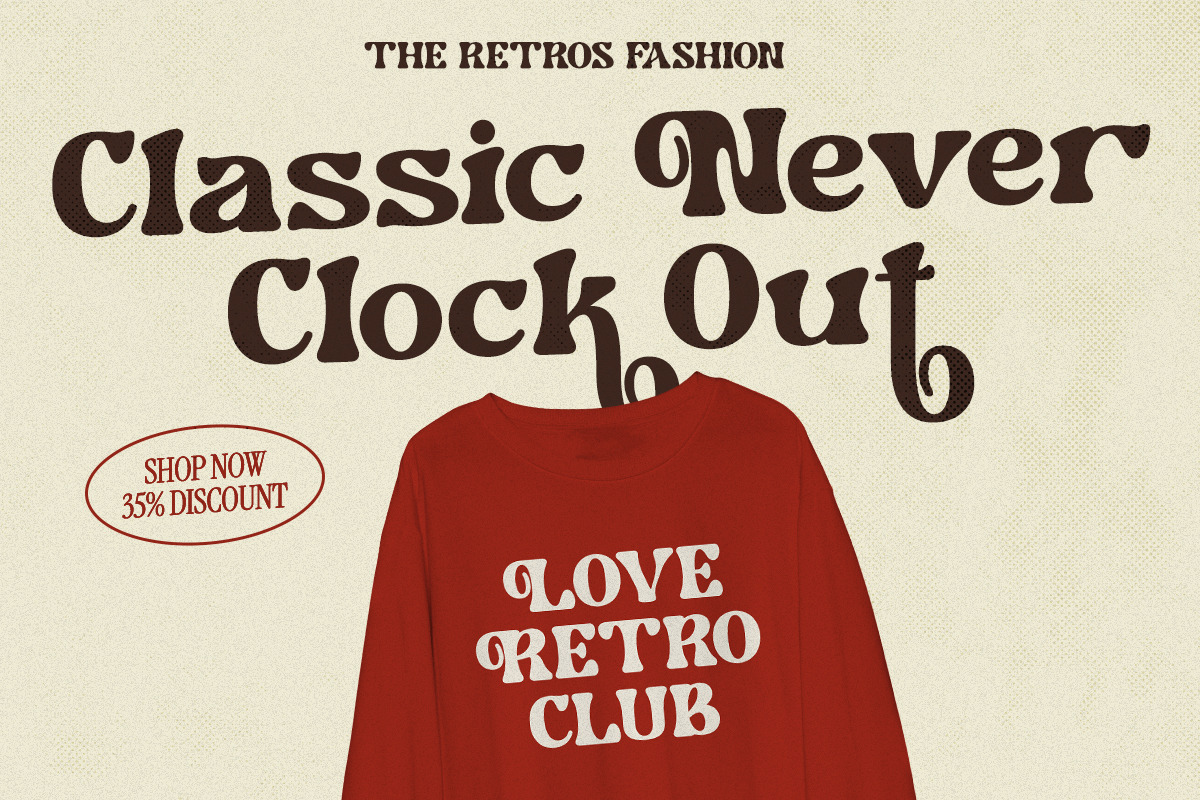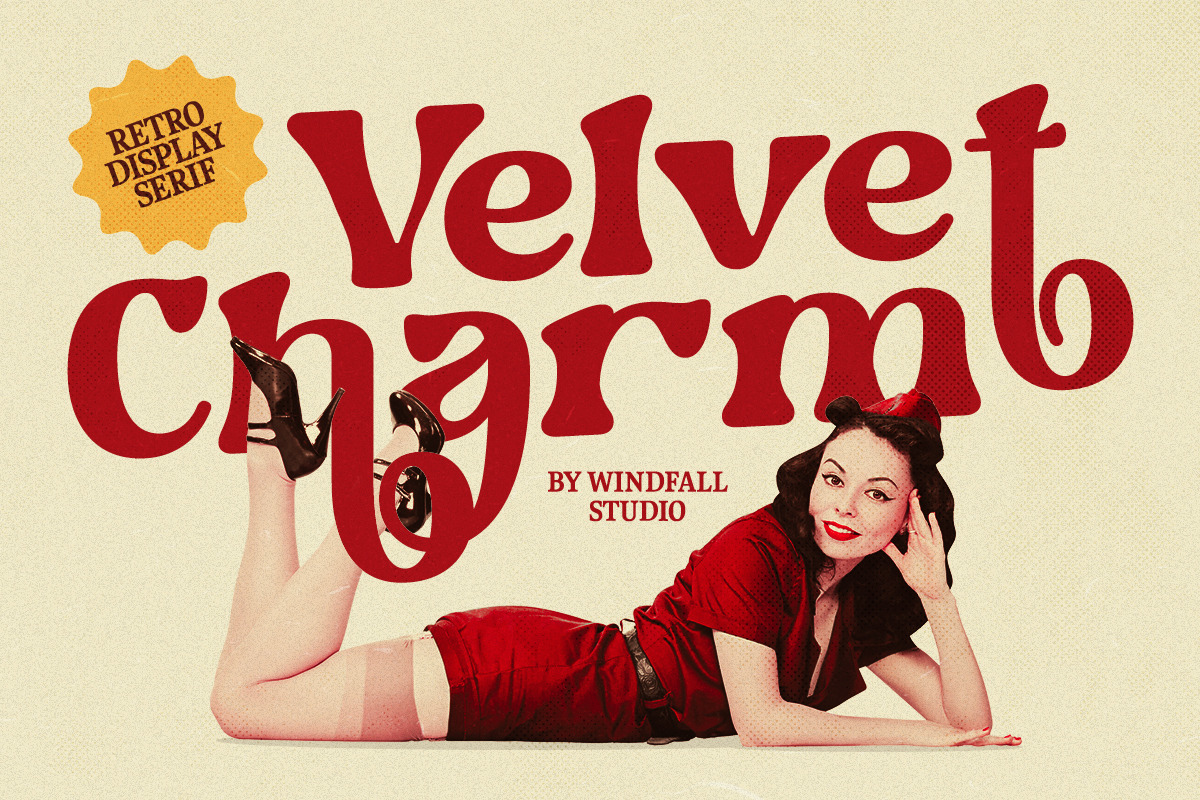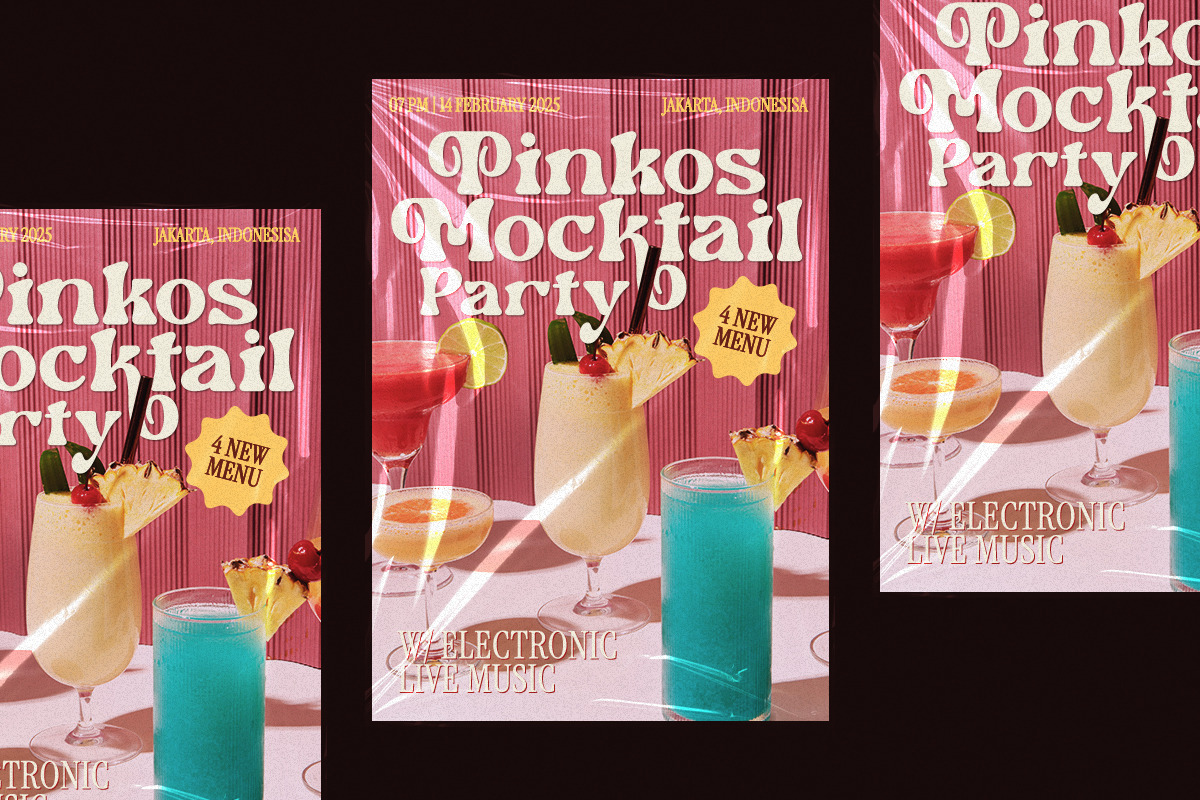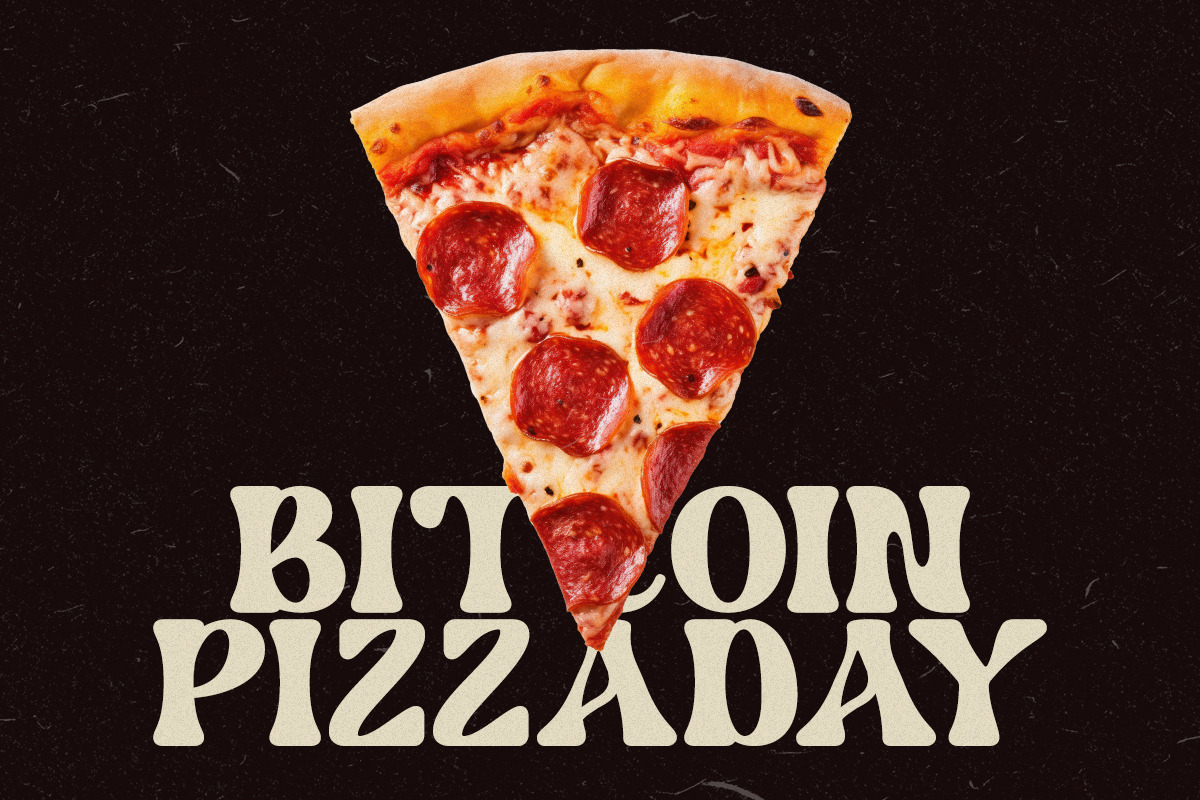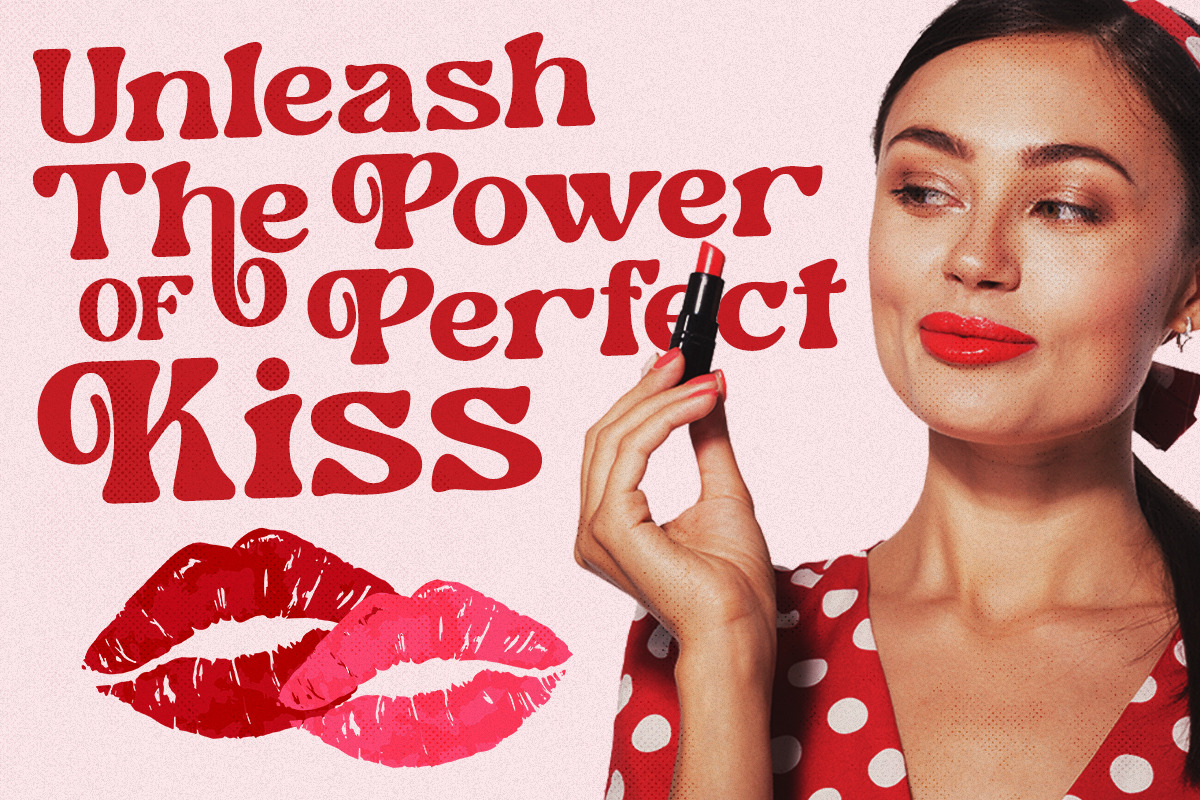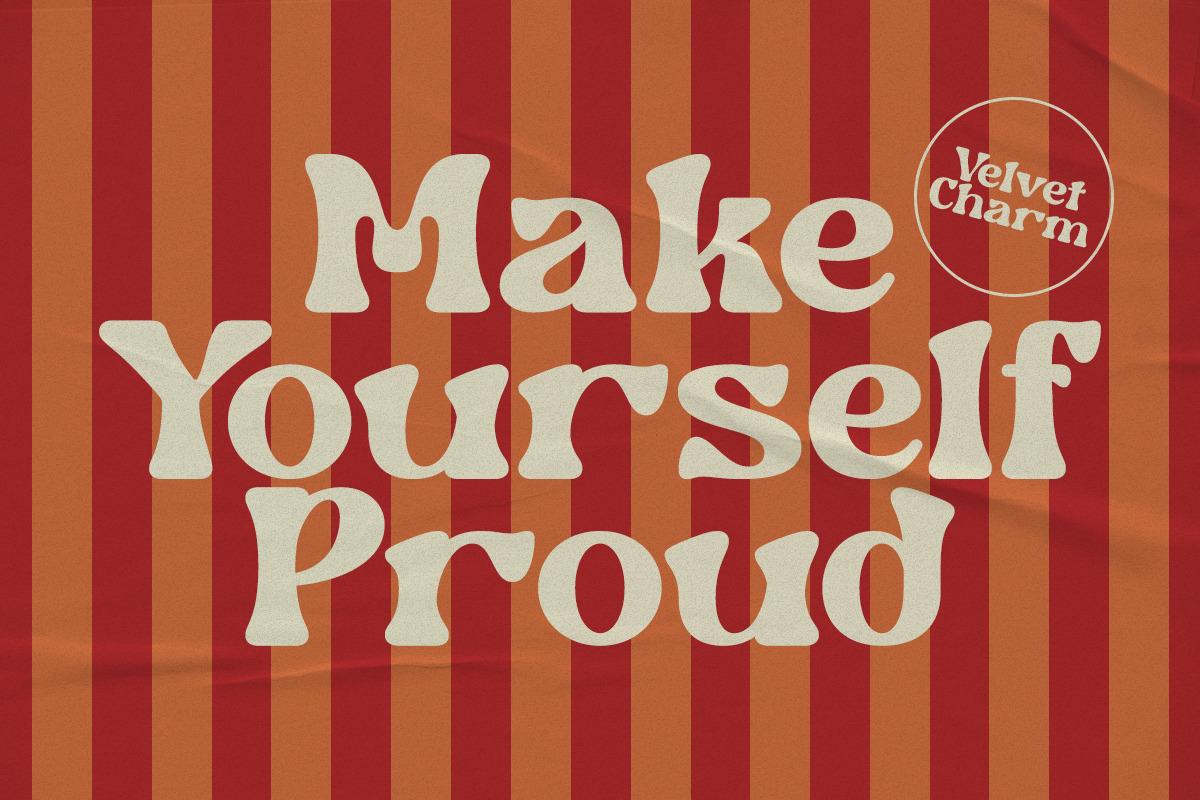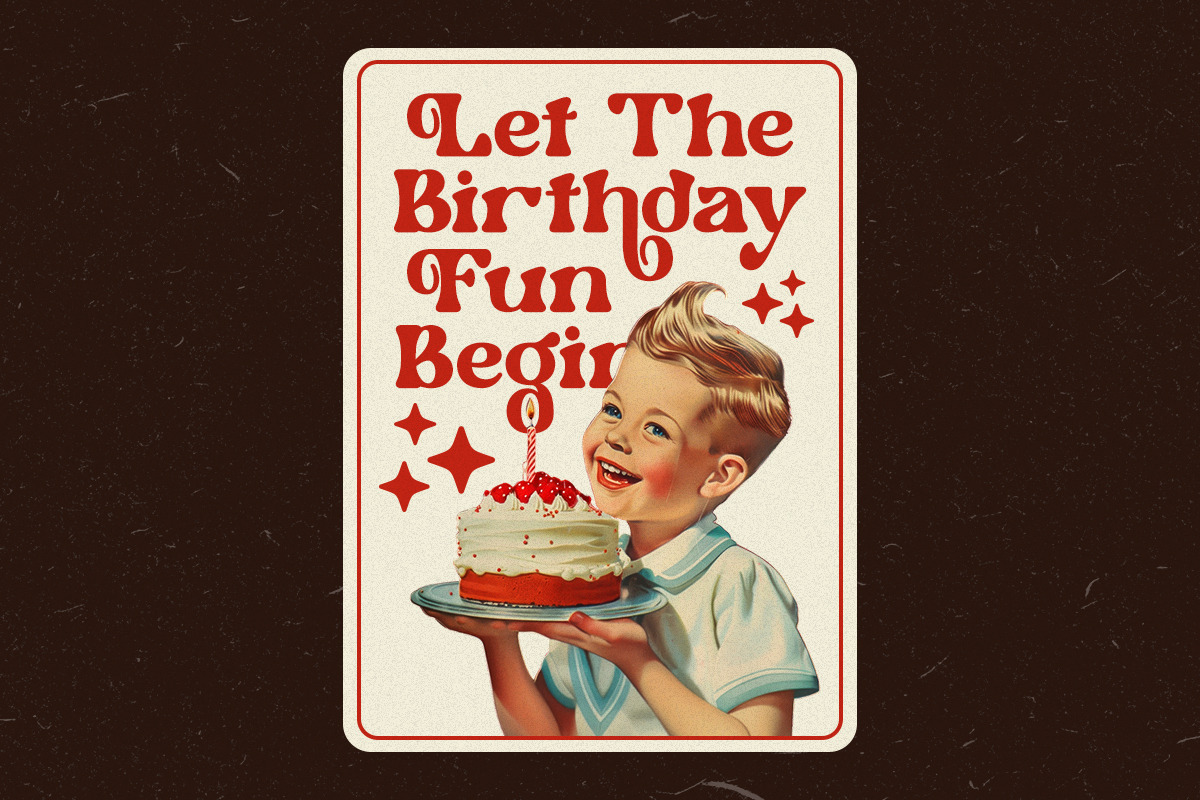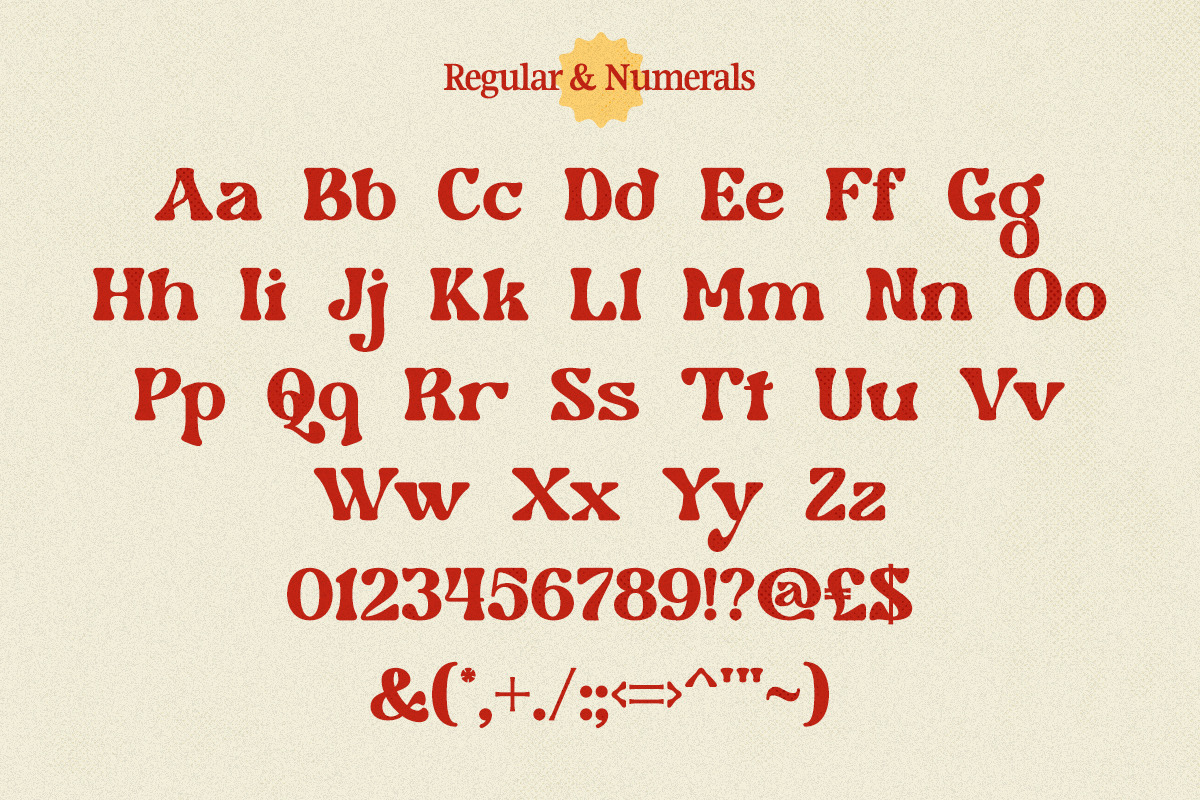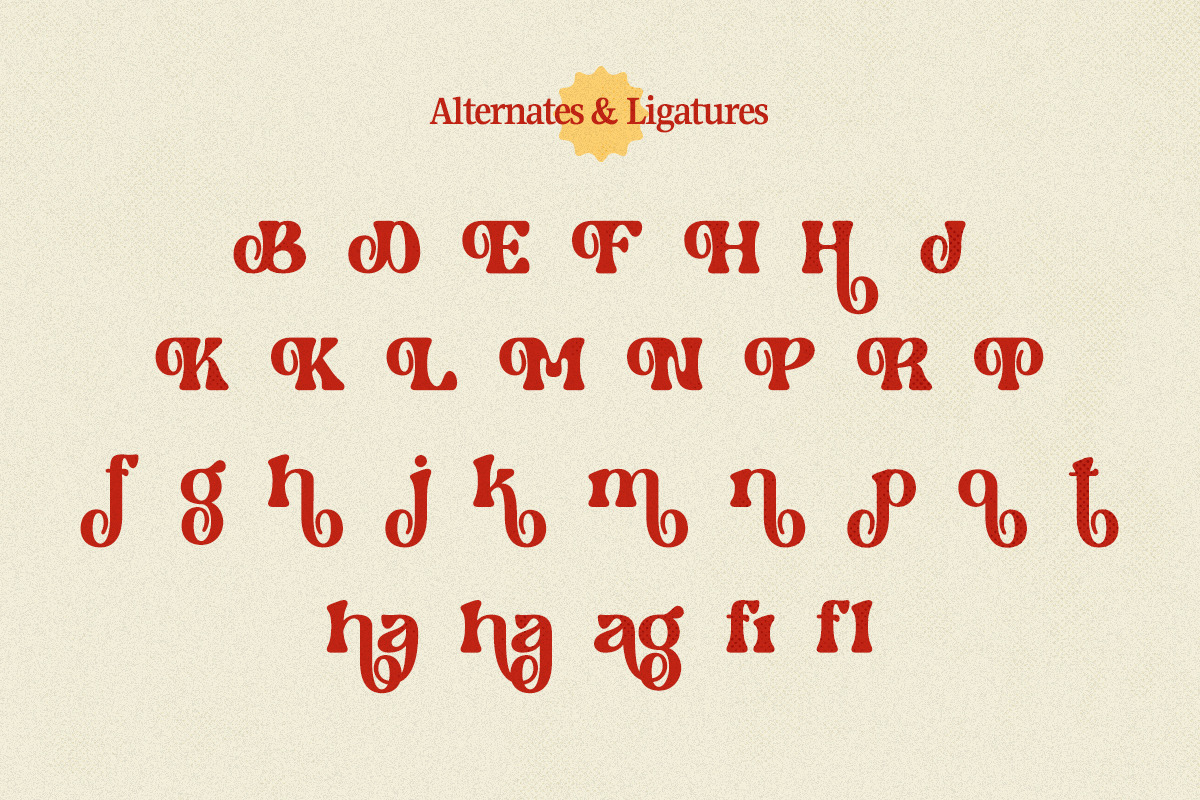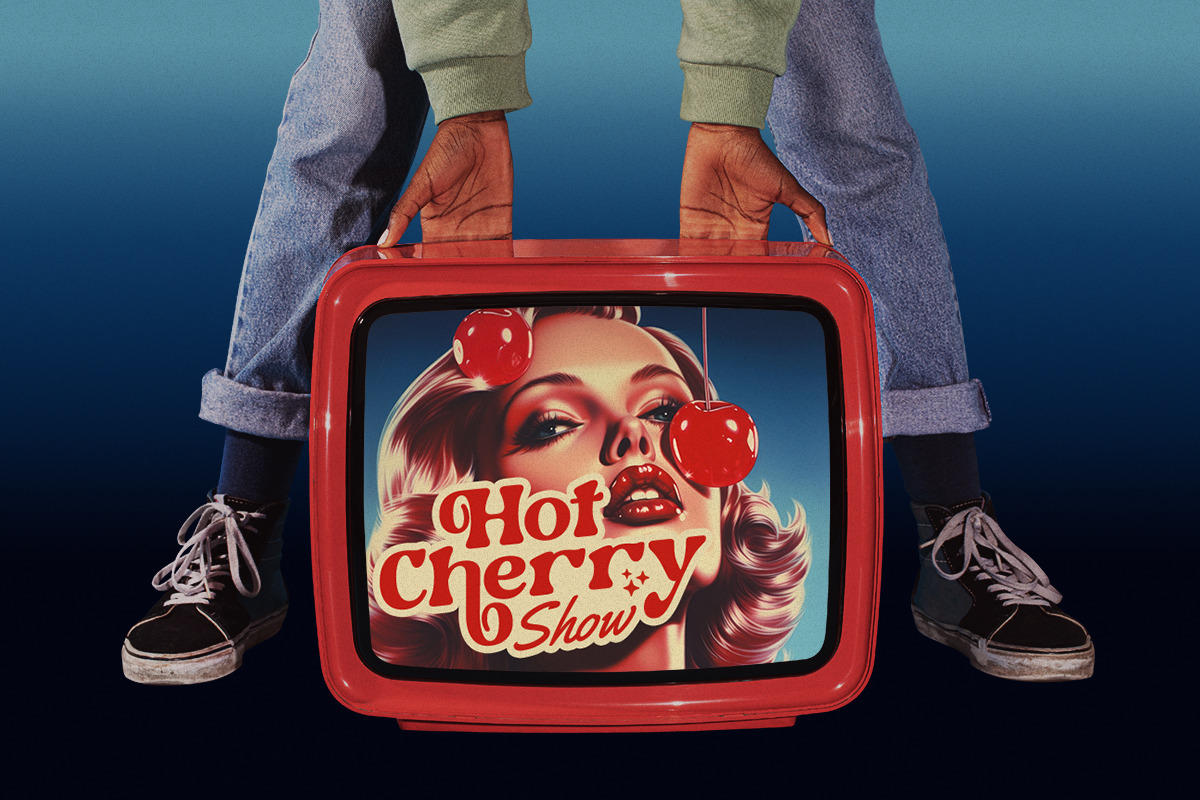
Velvet Charm - Retro Display Font
Introducing Velvet Charm, a stunning retro display font from Windfall Studio. This font captures the essence of vintage elegance with its smooth curves and bold serifs, making it perfect for headlines, logos, posters, and branding projects. Whether you're designing for a nostalgic theme or adding a touch of classic sophistication, Velvet Charm delivers timeless appeal. Elevate your designs with this unique typeface that blends retro vibes with modern versatility.